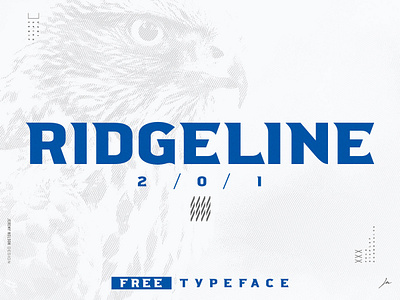
Ridgeline 201 | FREE FONT | Spike-Serif Display Typeface
Ridgeline 201
Inspired by speed, power, agility, and an unapologetic style of play, Ridgeline 201’s athletic roots, bold forms, and tapering spike serifs project it's precision, weight, and motion.
Ridgeline is an all-caps display typeface that was originally drawn as part of a sports branding identity system. Perfect for the sporting world, Ridgeline is right at home on the field, in the stands, or with the fans!